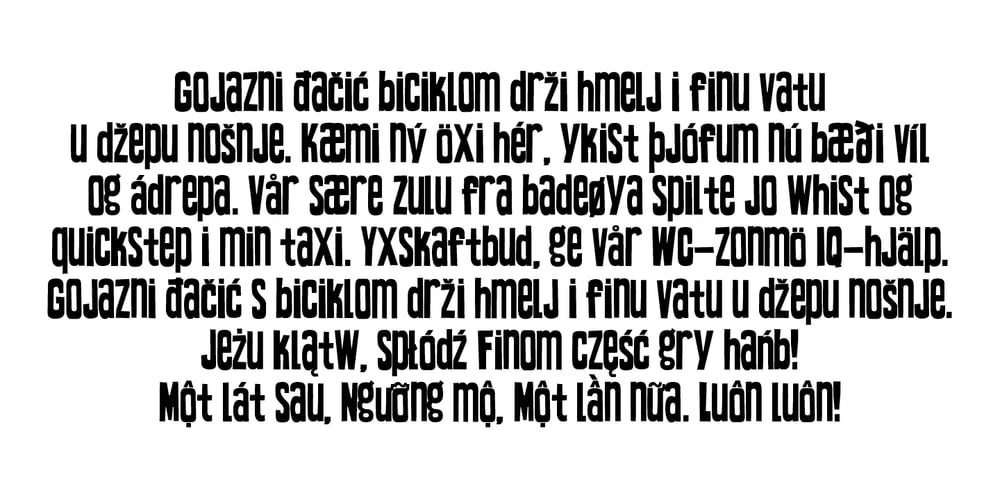
TOMO Zomba Pro
TOMO Zomba Pro font
TOMO Zomba Pro Font Family was designed by TOMO Fonts and published by TOMO Fonts. TOMO Zomba Pro contains 1 styles and family package options. ZOMBA! It’s a retro-horror typeface that speak for itself. Ideal for big and strong messages. Kids gonna love it. Carefully hand crafted, includes almost all latin languages and cyrillic!